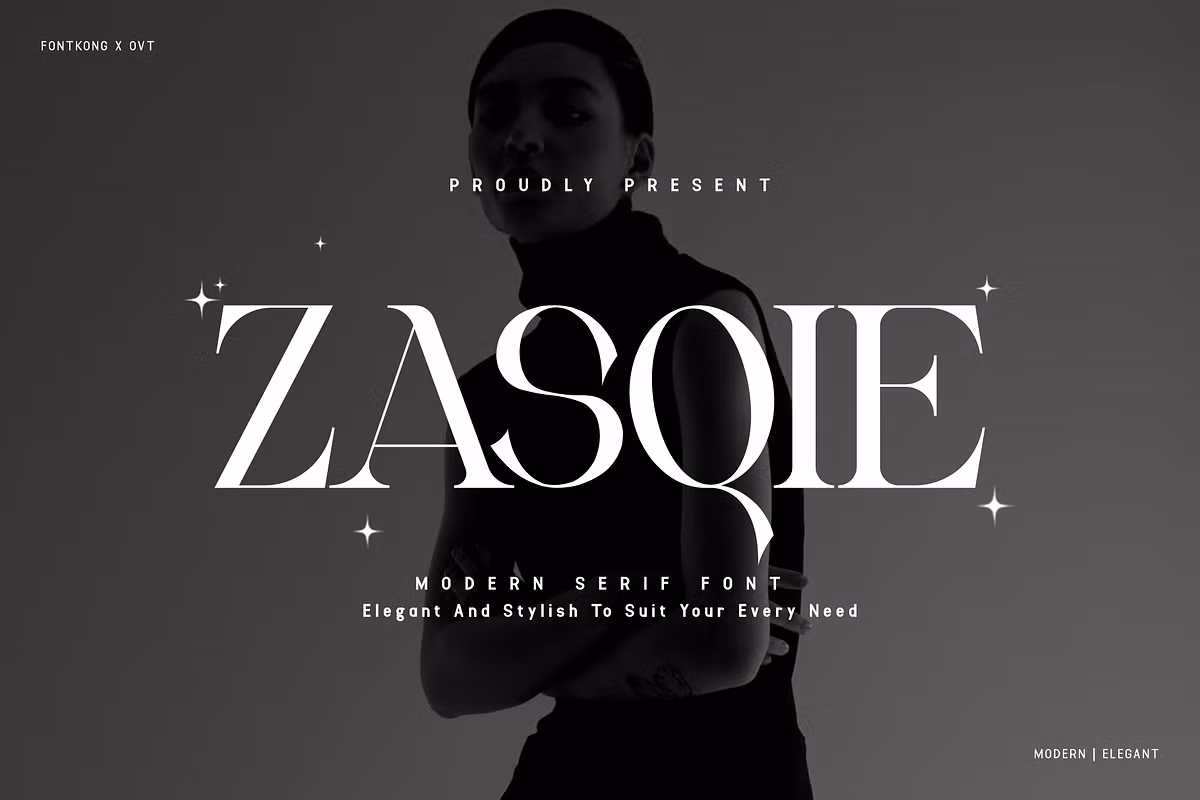
Zasqie - Modern Serif Font Free Download
Zasqie - Modern Serif Font Free Download is a sophisticated typeface that blends classic serif structure with sleek modern details. Its high contrast strokes and elegant curves make it a standout choice for branding, editorial design, fashion campaigns, and upscale packaging. Zasqie brings a refined and contemporary feel to any project that demands both style and substance.
With its clean lines and graceful serifs, Zasqie is perfect for creating striking headlines, stylish logos, and polished print layouts. It delivers readability while maintaining a unique personality that captures attention without overwhelming your message. This font is ideal for designers seeking a balance between tradition and trend.